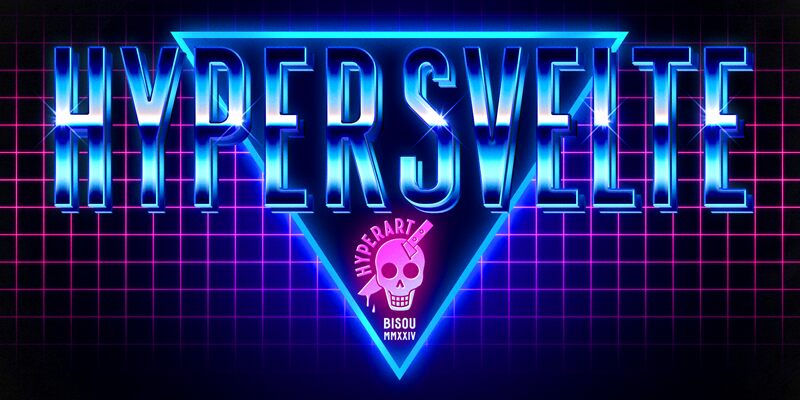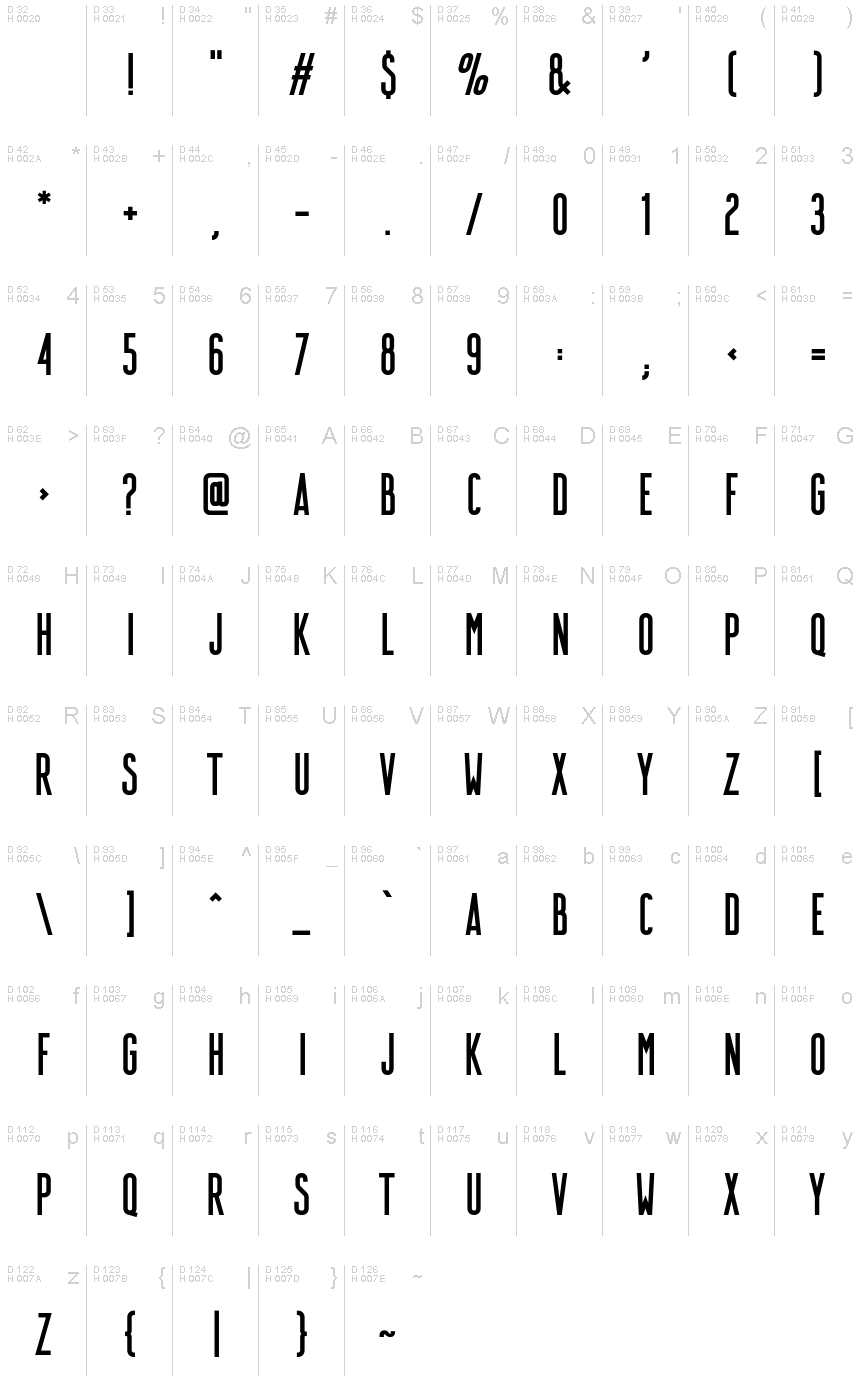
HyperSvelte
Hyper Svelte, a captivating sans-serif font designed by Bisou, exudes an air of modern sophistication and effortless elegance. With its condensed width and clean lines, this typeface strikes a delicate balance between minimalism and visual impact. The sharp, angular letterforms create a bold, attention-grabbing aesthetic, while the subtle curves lend a touch of softness, evoking a sense of refined sophistication.
Hyper Svelte's versatility makes it a compelling choice for a wide range of design applications. Its compact nature and strong visual presence make it an excellent option for branding, logos, and headlines, where it can effectively command attention and communicate a clear, impactful message. Additionally, the font's legibility and streamlined appearance make it suitable for use in digital interfaces, editorial layouts, and packaging design, where it can bring a touch of contemporary flair to the overall aesthetic.